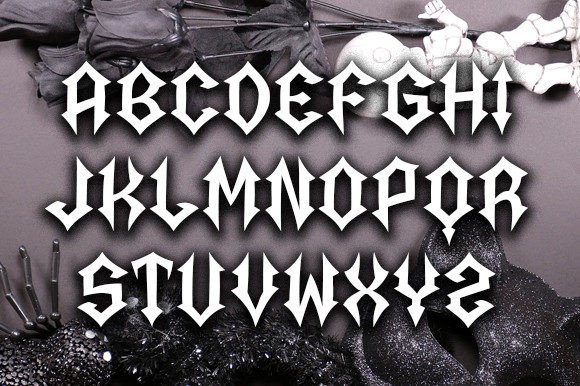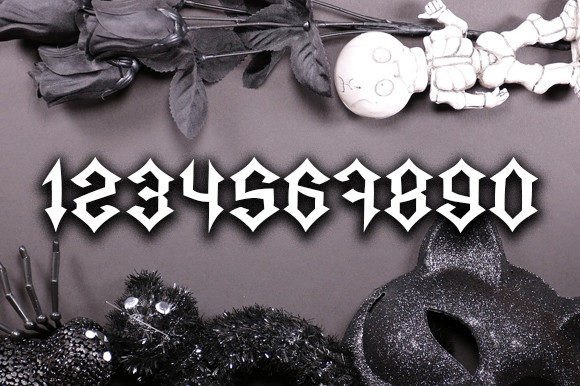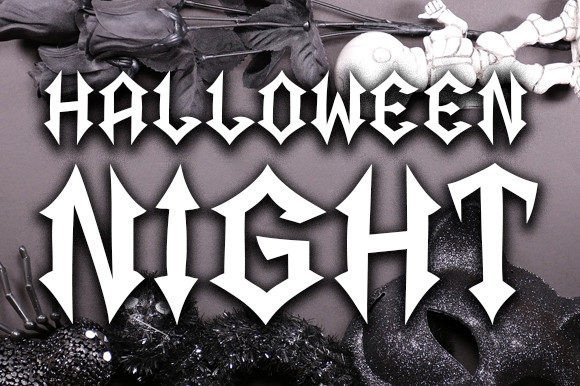
Introducing Afterlife Font: The Ultimate Gothic and Blackletter Addition to Your Designs
Are you a designer or crafter looking for a unique and eye-catching font to elevate your creative projects? Look no further than Afterlife Font, an eccentric gothic and blackletter font that’s sure to make a statement. In this article, we’ll dive into the features and benefits of Afterlife Font, and explore how it can be used to add a touch of drama and sophistication to your designs.
What is Afterlife Font?
Afterlife Font is a distinctive gothic and blackletter font that’s perfect for adding a touch of mystery and intrigue to your designs. With its intricate and ornate lettering, this font is sure to stand out from the crowd and leave a lasting impression on your audience. Whether you’re creating logos, invitations, cards, social media graphics, movie titles, book covers, or posters, Afterlife Font is the perfect choice.
Key Features of Afterlife Font
- Eccentric Gothic and Blackletter Style: Afterlife Font boasts a unique and eccentric gothic and blackletter style that’s sure to add a touch of drama and flair to your designs.
- Intricate and Ornate Lettering: The font features intricate and ornate lettering that’s perfect for creating eye-catching and memorable designs.
- High-Quality Design: Afterlife Font is designed with high-quality and precision, ensuring that it looks great in any size or format.
- Versatile and Flexible: The font is versatile and flexible, making it perfect for a wide range of design applications, from logos and branding to social media graphics and posters.
Benefits of Using Afterlife Font
So why choose Afterlife Font for your design projects? Here are just a few benefits of using this amazing font:
- Adds Drama and Sophistication: Afterlife Font adds a touch of drama and sophistication to your designs, making them stand out from the crowd.
- Perfect for Creative Projects: The font is perfect for creative projects, such as logos, invitations, cards, social media graphics, movie titles, book covers, and posters.
- Unique and Eye-Catching: The font is unique and eye-catching, ensuring that your designs will be noticed and remembered.
Inspiration and Ideas for Using Afterlife Font
Need some inspiration for using Afterlife Font? Here are a few ideas to get you started:
- Logos and Branding: Use Afterlife Font to create unique and memorable logos and branding materials.
- Invitations and Cards: Use the font to create eye-catching and elegant invitations and cards.
- Social Media Graphics: Use Afterlife Font to create social media graphics that stand out from the crowd.
- Movie and Book Titles: Use the font to create dramatic and eye-catching movie and book titles.
- Posters and Flyers: Use Afterlife Font to create bold and eye-catching posters and flyers.
In conclusion, Afterlife Font is an amazing gothic and blackletter font that’s perfect for adding a touch of drama and sophistication to your designs. With its intricate and ornate lettering, high-quality design, and versatility, this font is sure to be a valuable addition to your design toolkit. So why wait? Download Afterlife Font today and start creating stunning designs that will leave a lasting impression on your audience.